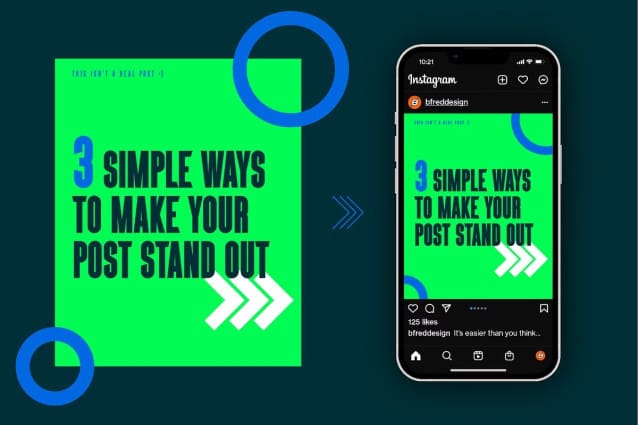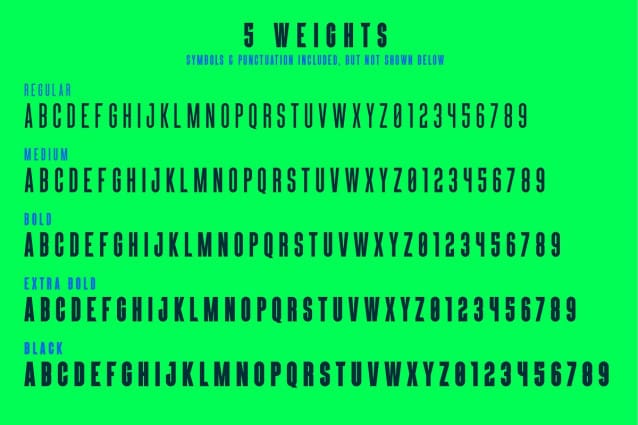
Social Sans Font
SOCIAL SANS Font is a bold and condensed display font family that is incredibly diverse. Initially, I wanted to design a font for content creators that was cool, simple and just a little bit edgy. As I began to further develop this font, I realized it could be used for so much more than social media design.
SOCIAL SANS works great as an Instagram font for your posts, stories or captions. Additionally, it can be used as a sleek and edgy sports font in sports logos and other sports design.
It also works great as a sleek and stylish font for posters, editorial design, magazine covers, and the list goes on.
Available in 5 weights in capital letters only. Also included are italicized versions and all basic symbols and punctuation marks.